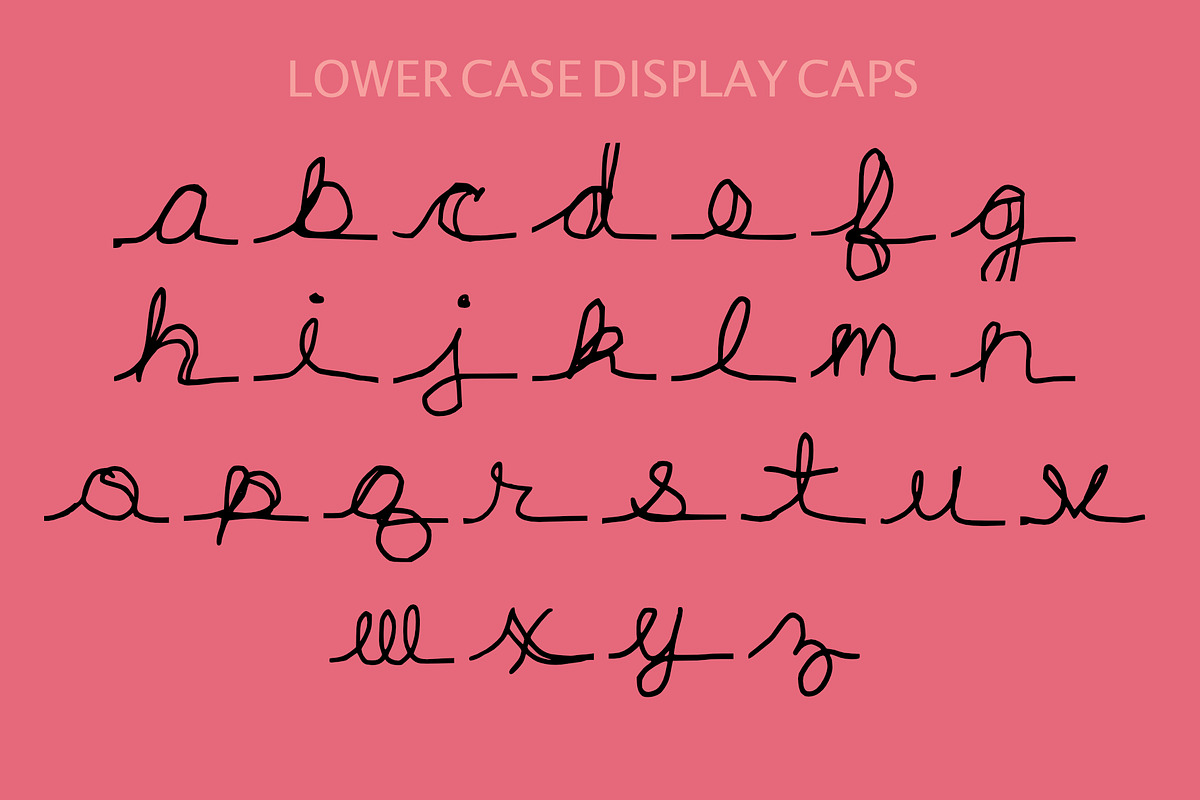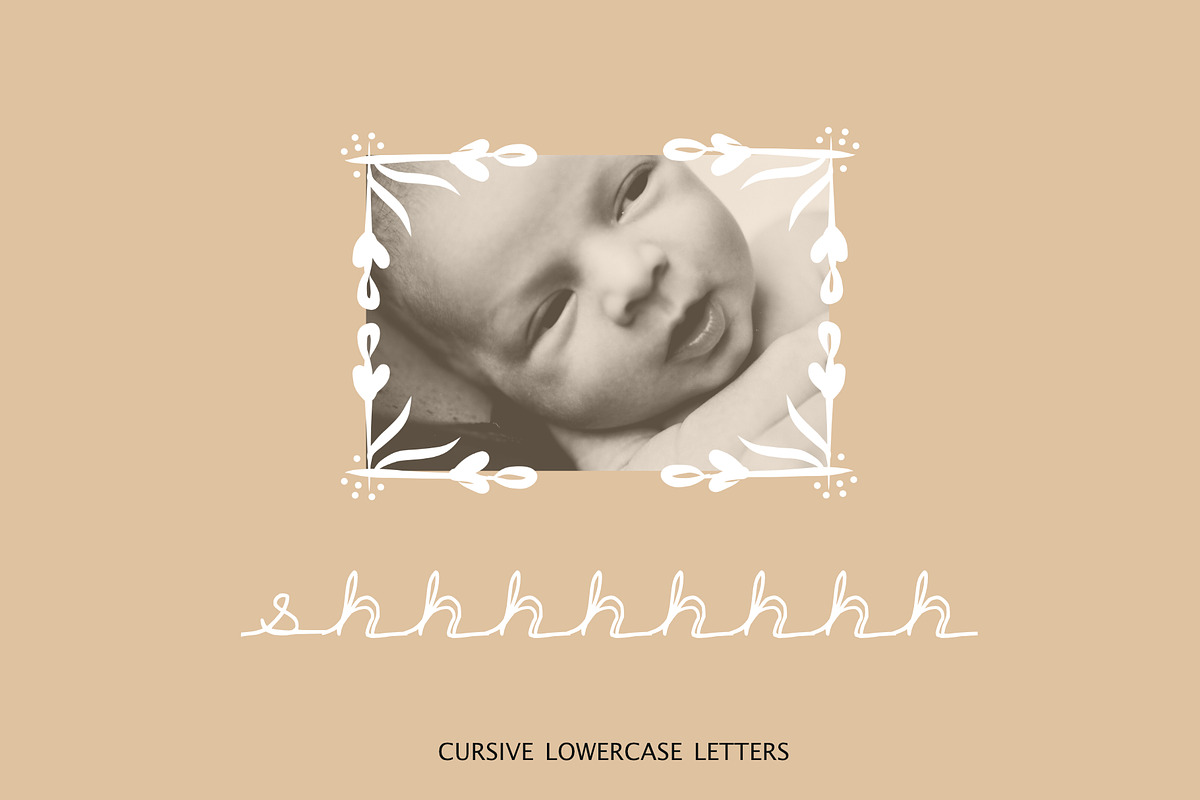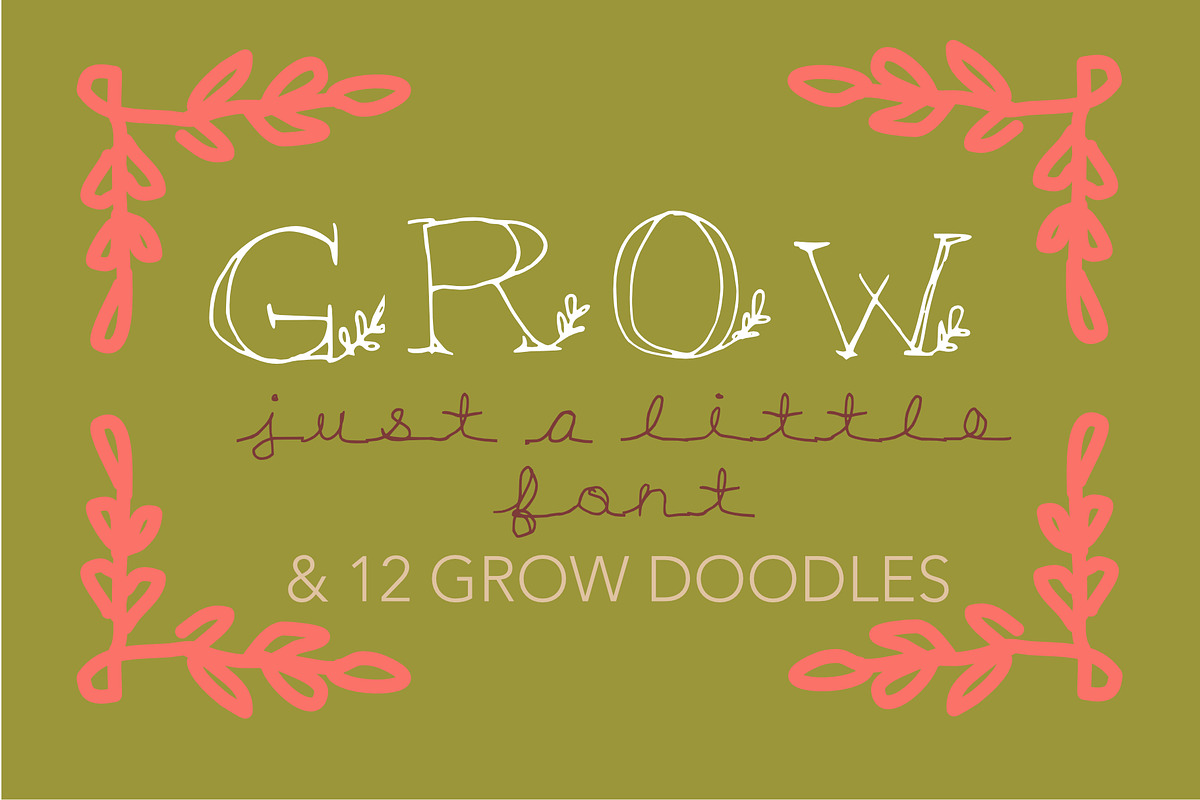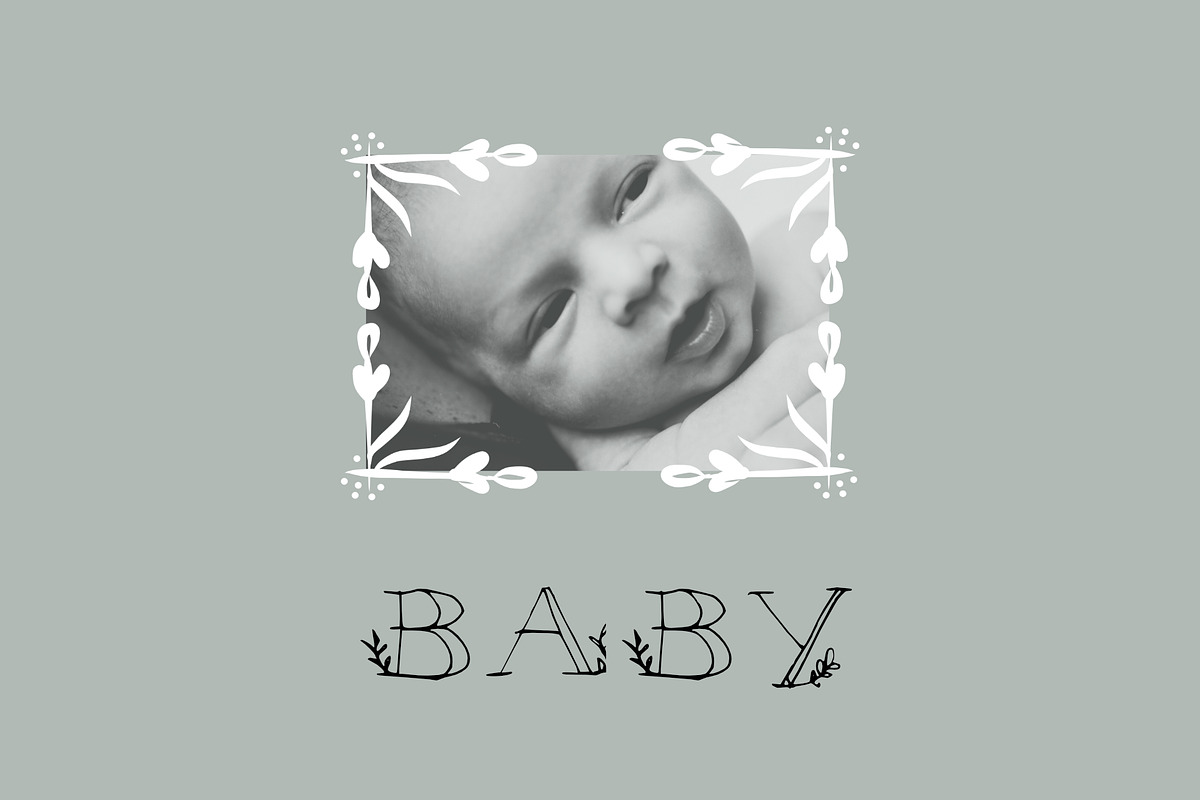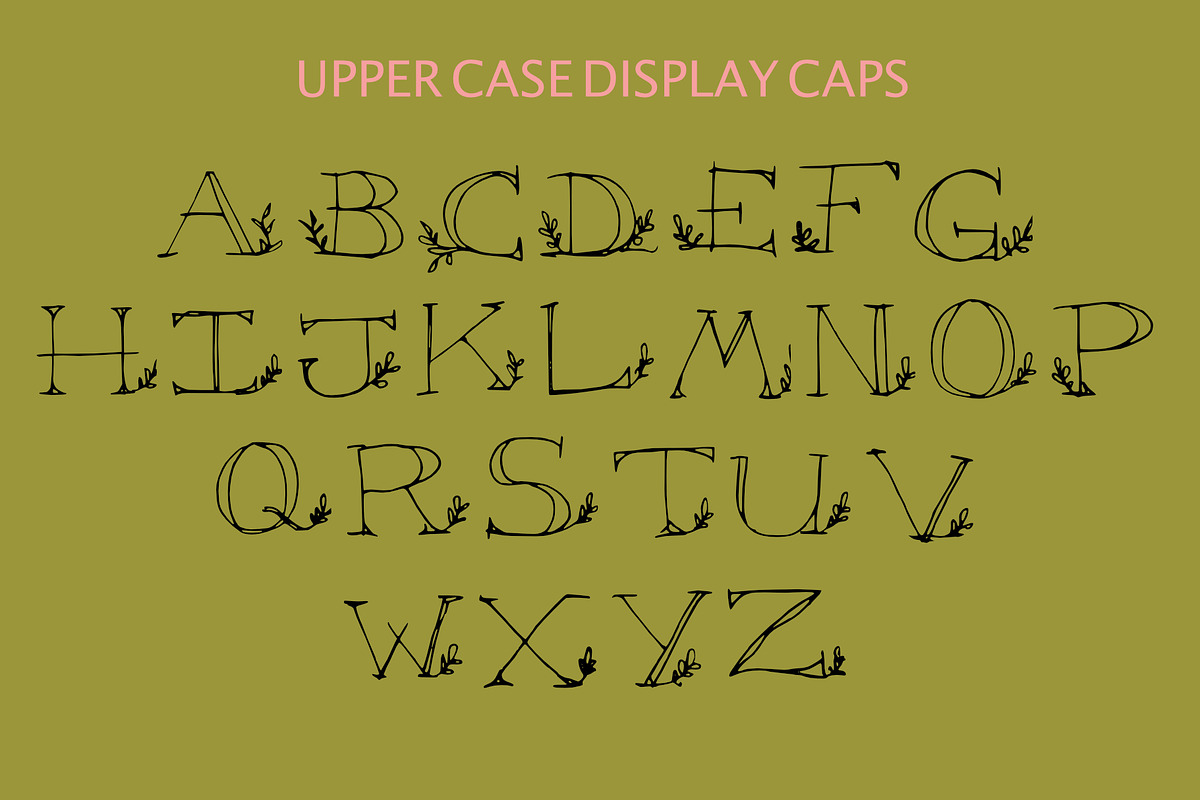
Grow - A Hand Drawn Display Cap Font
This is a simple little hand drawn font called "Grow", it features thin lines with floral details. Available in OTF and TTF files. Also included is a PSD file of 12 embellishments as seen used in the sample screens.
Why Grow - A Hand Drawn Display Cap Font is worth a look